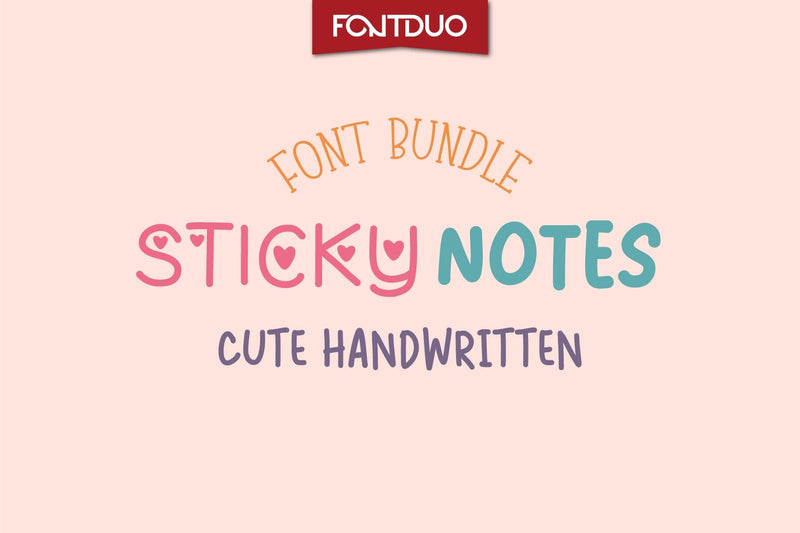
Cute Sticky Notes Font Bundle
There's nothing cuter than a handwritten font. Its potential to elevate any creation will make this font a valuable addition to your font collection. This bundle includes 5 cute fonts namely Flora, Emily, Maddie, Zoe, and Hearts.